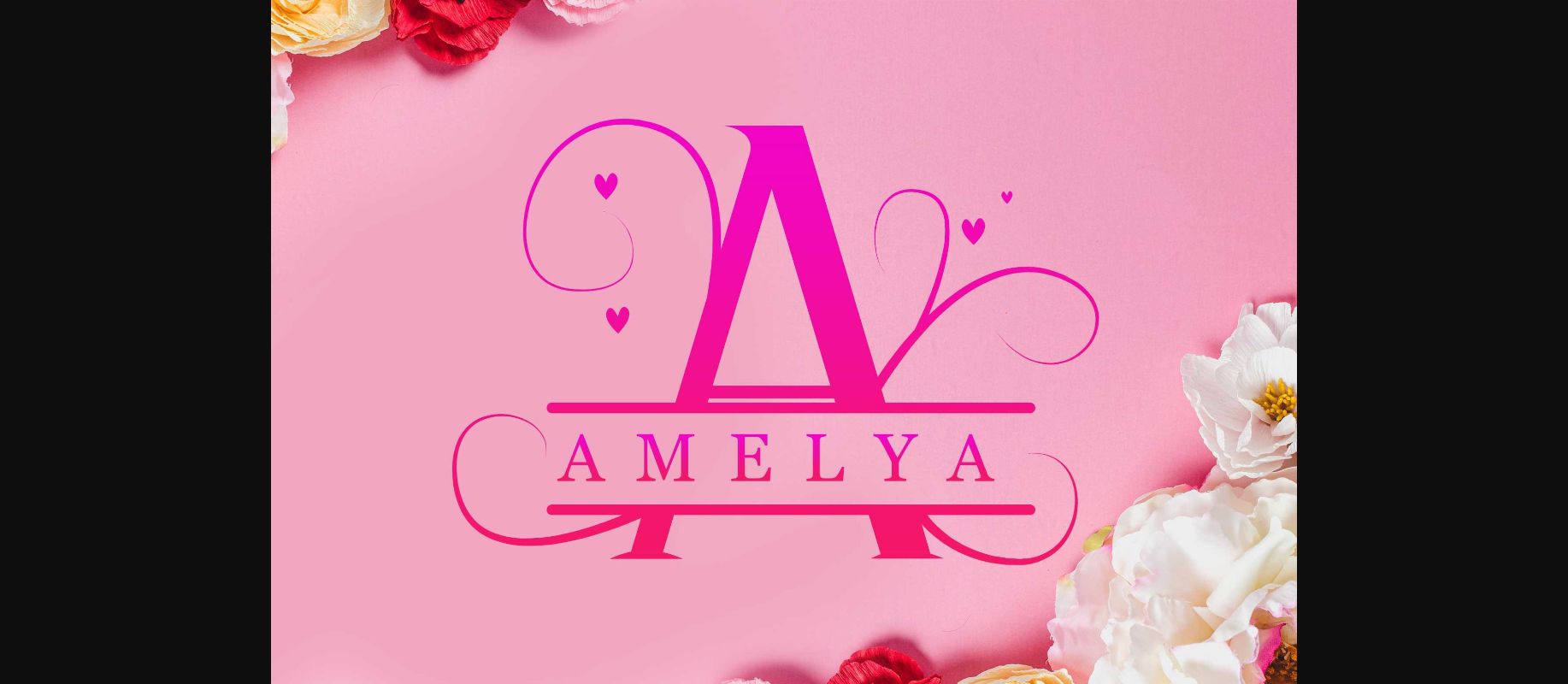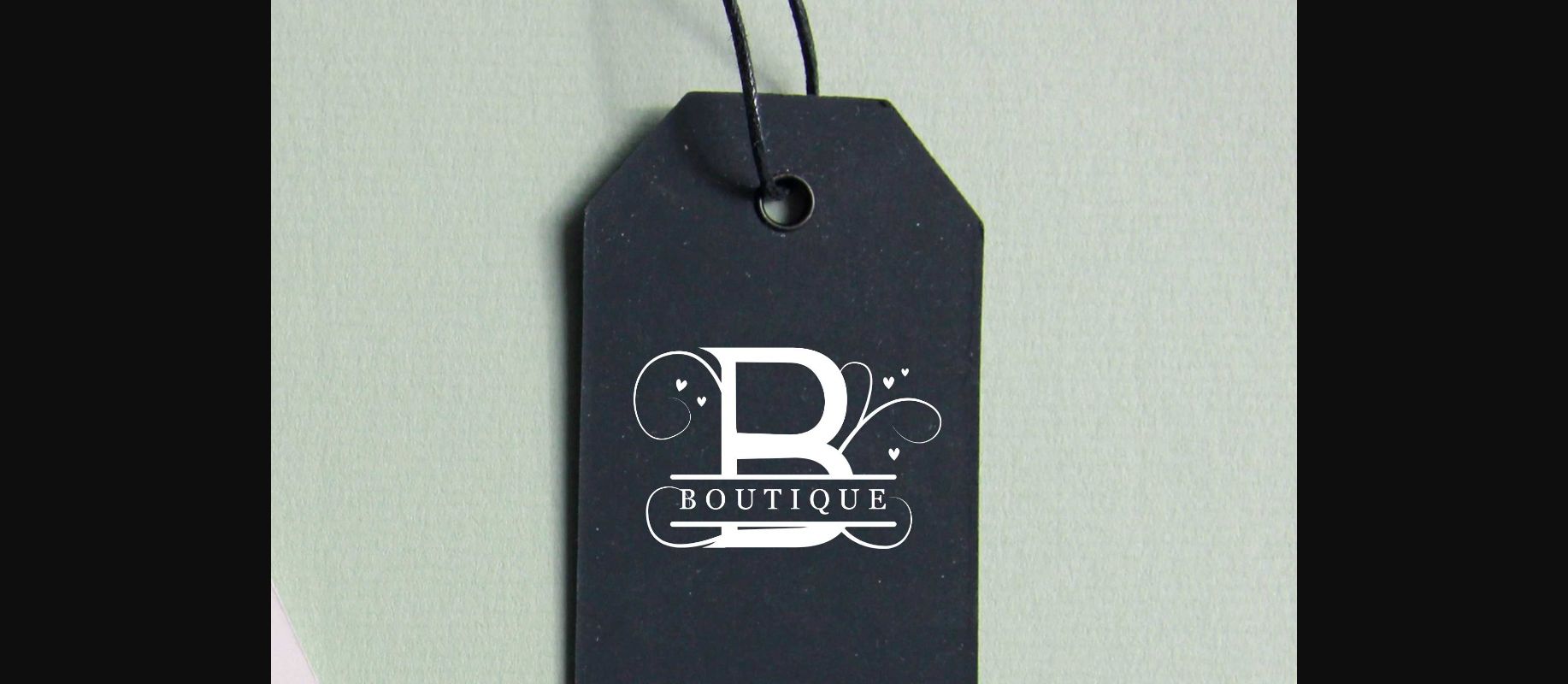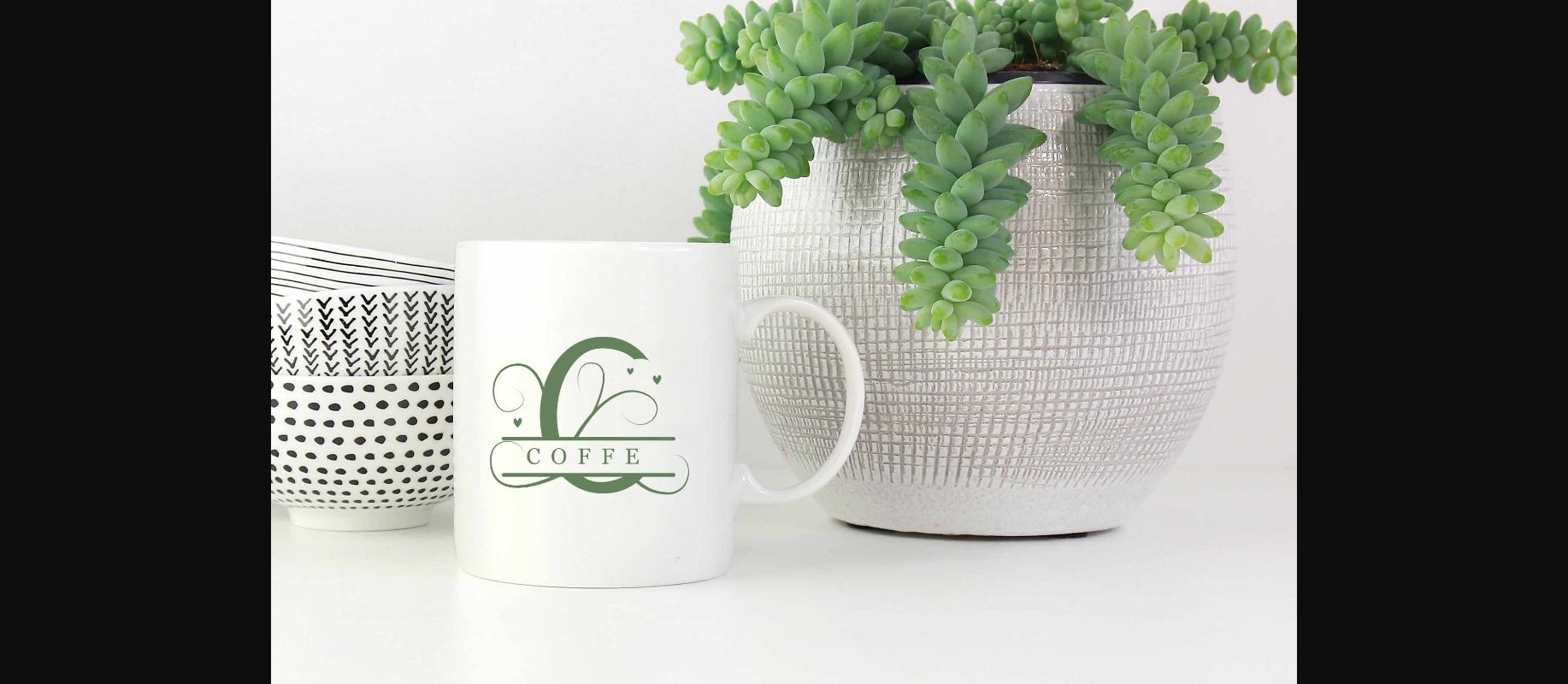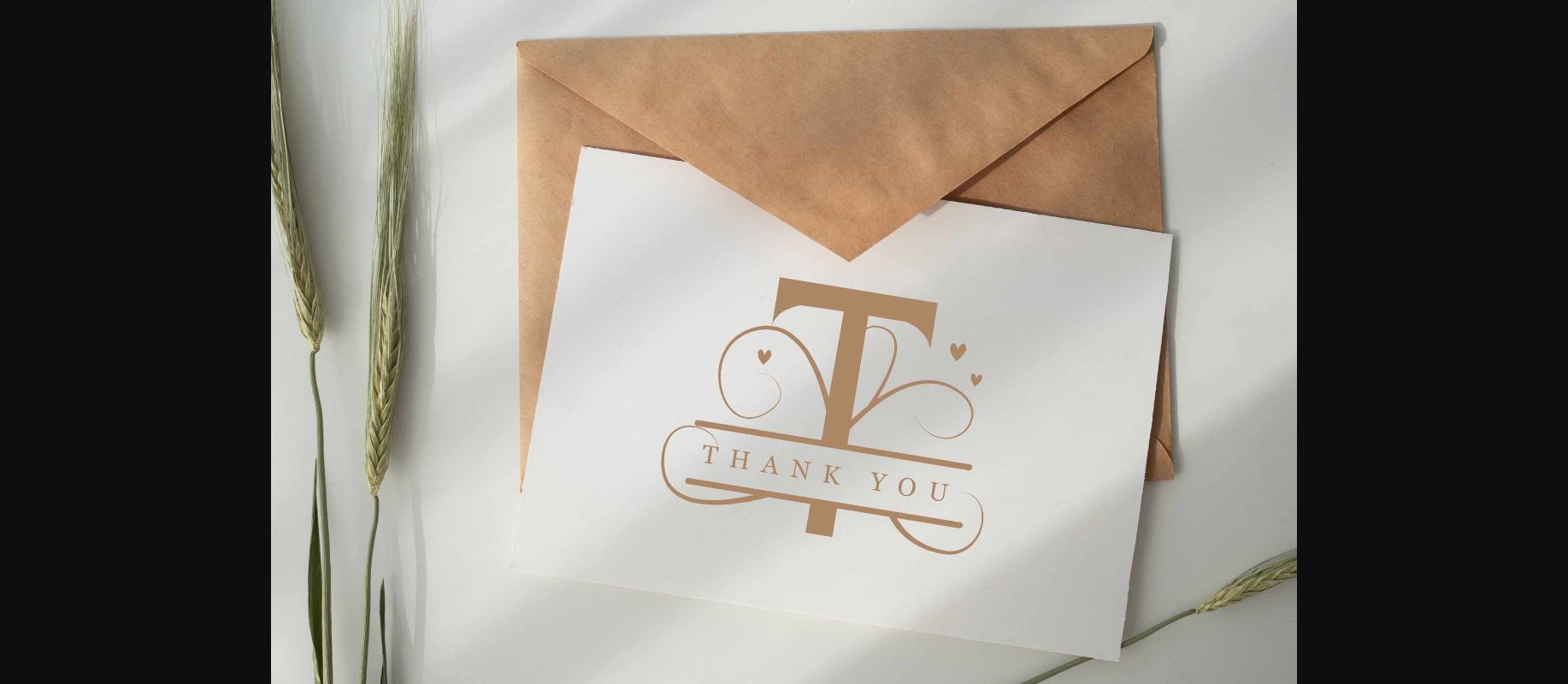
Amelya Monogram Font
About Amelya Monogram Font
Amelya Monogram is a cool, interesting decorative font. This font was particularly crafted for those who need a beautiful and refreshing look to their designs.